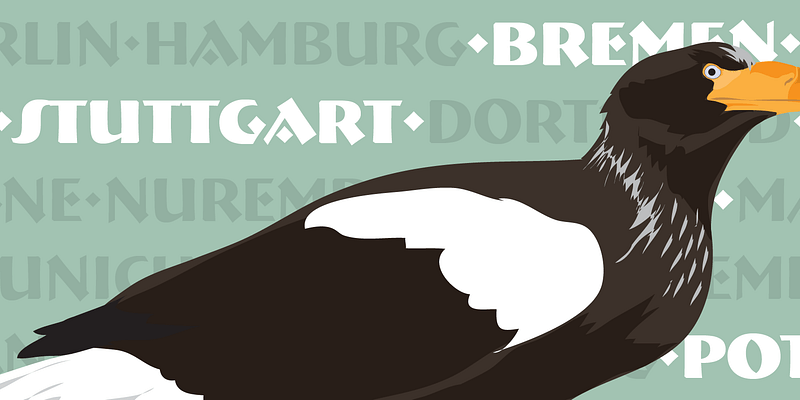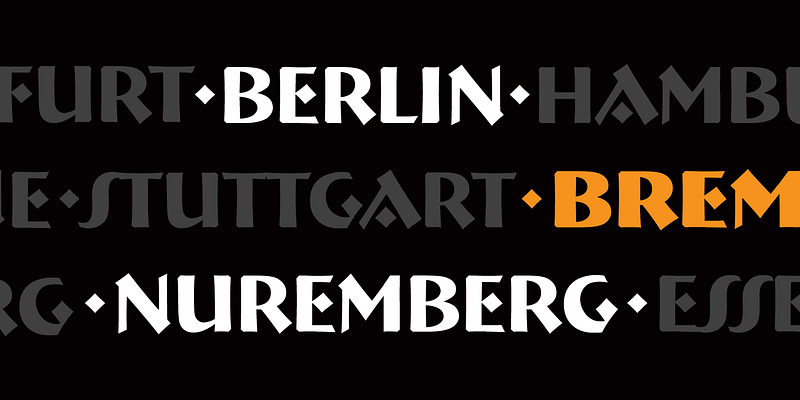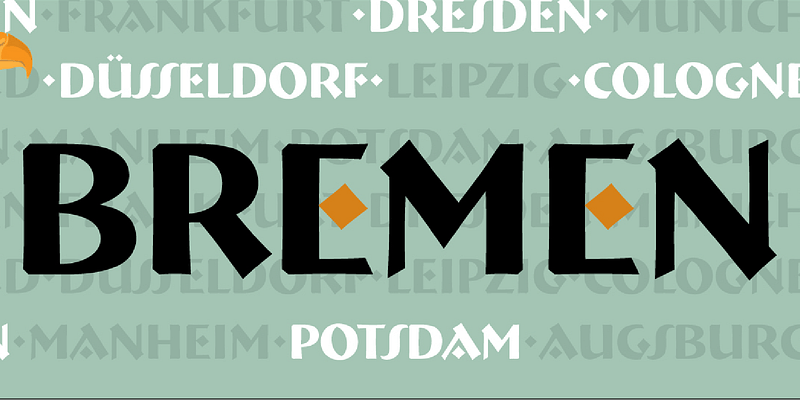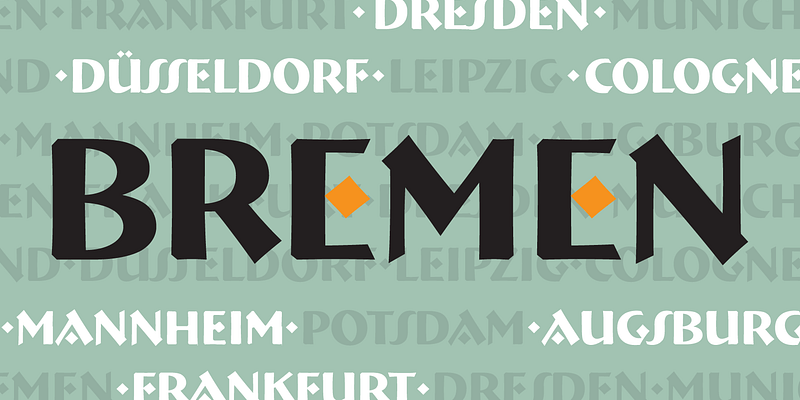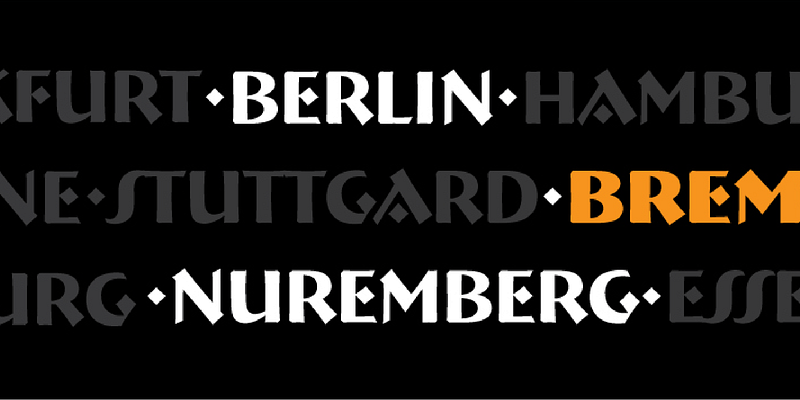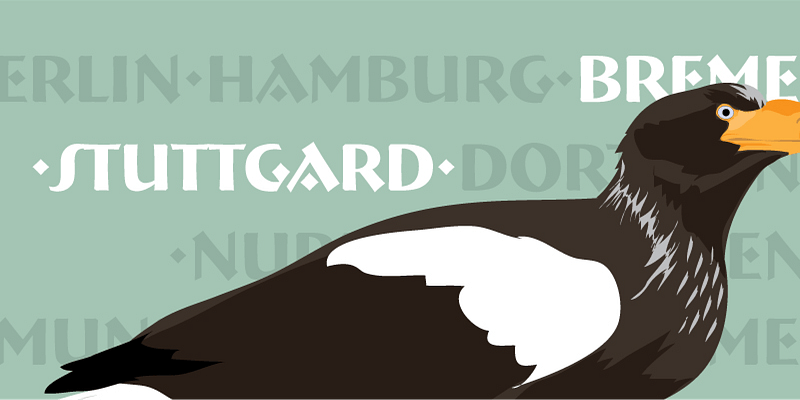
Lipton Letter Design is where you will find typefaces that epitomize calligraphic elegance, versatility, and timeless appeal. For more than 40 years, Richard Lipton has used his background as a calligrapher to guide his work as a type designer. Finding creative freedom within the strict parameters of type design, he feels no limits in his letter-making. Whether serif, sans, script, or display, Lipton’s faces have a sophisticated range sure to elevate the projects of any designer or typographer.